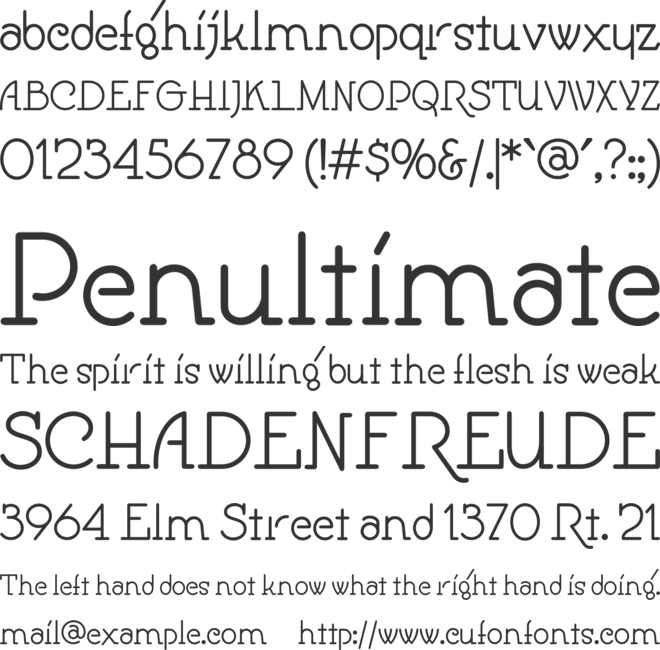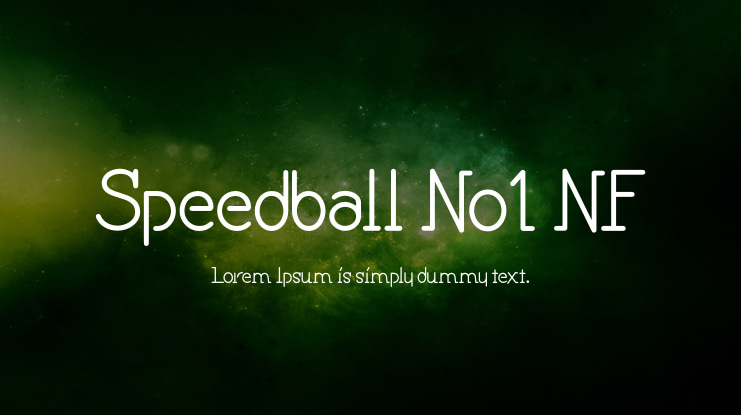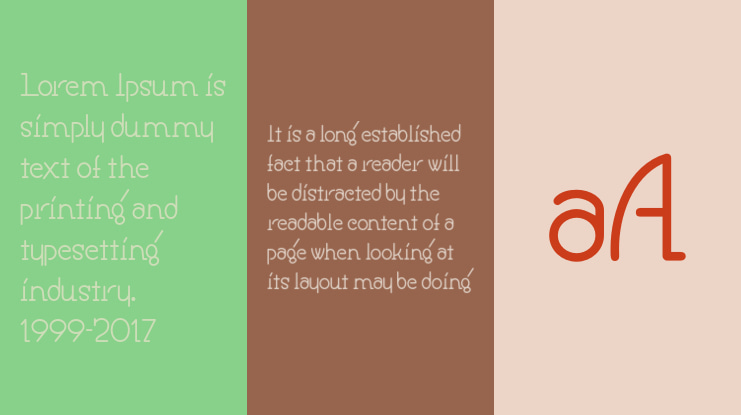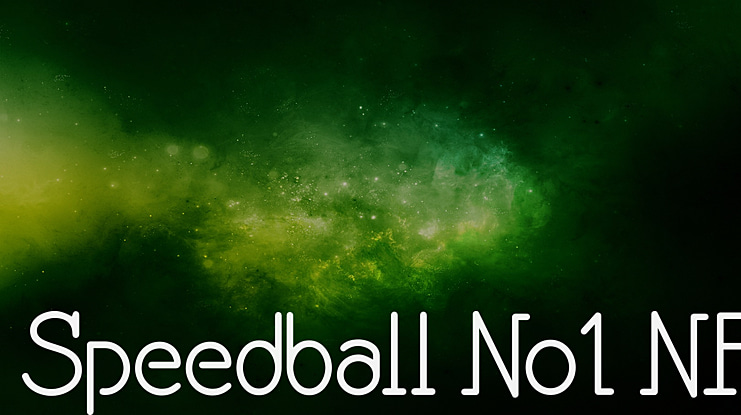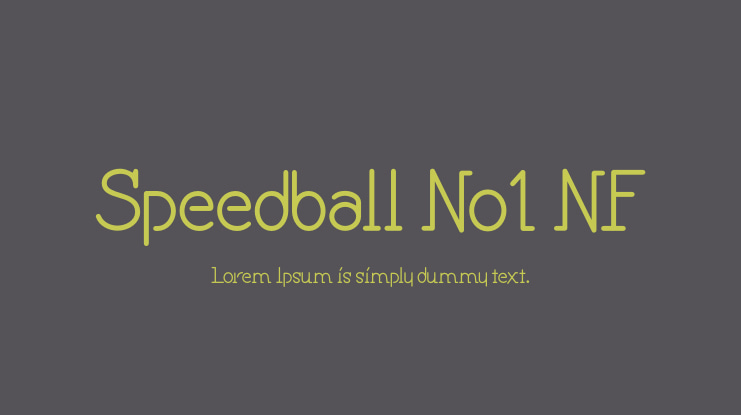
Speedball No1 NF Font Family
Nick Curtis
Another charming handlettered gem based on the work of lettering artist Samuel Welo, from the 1927 edition of his Studio Handbook.